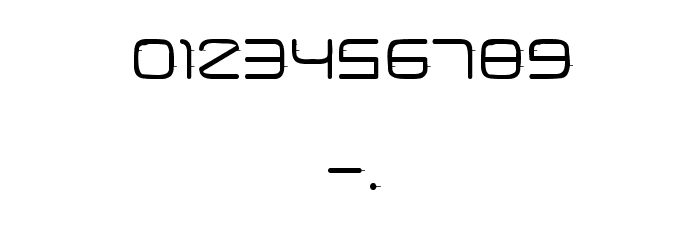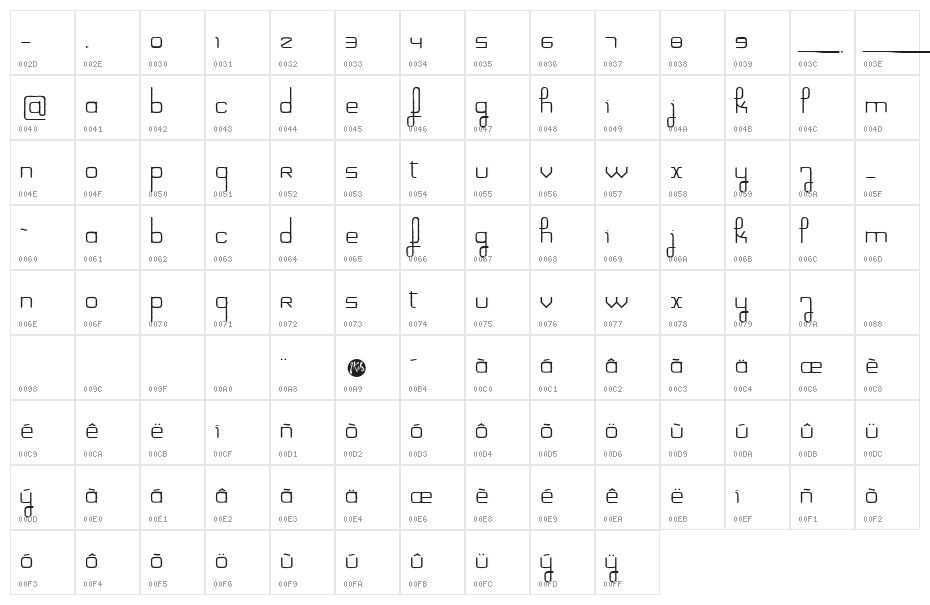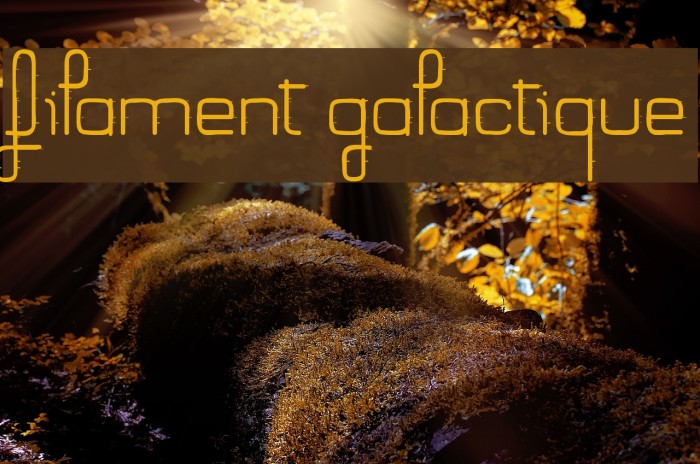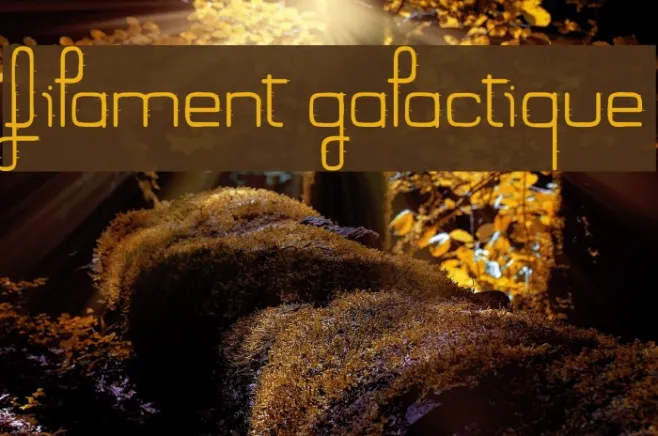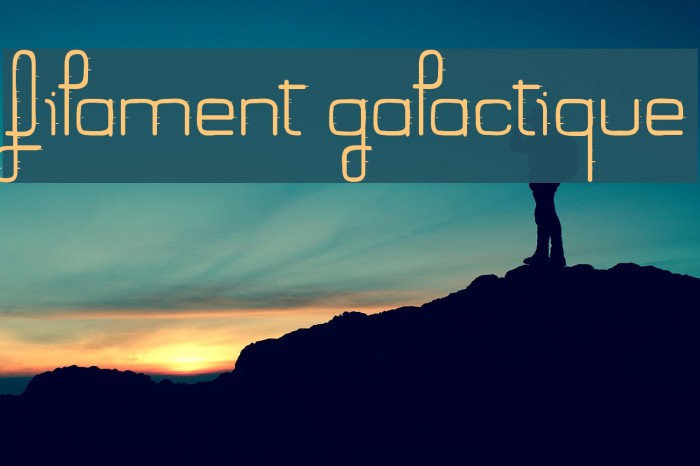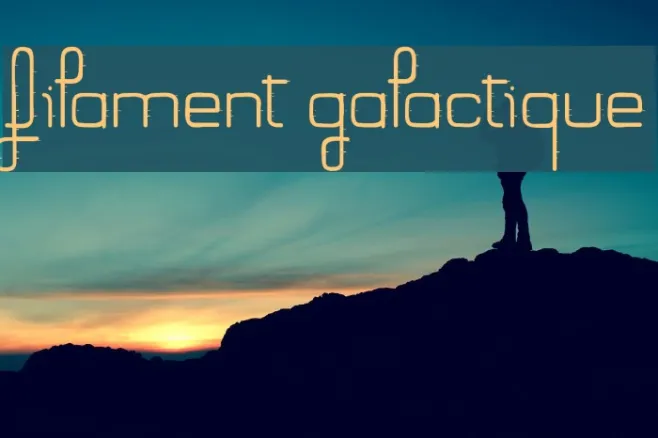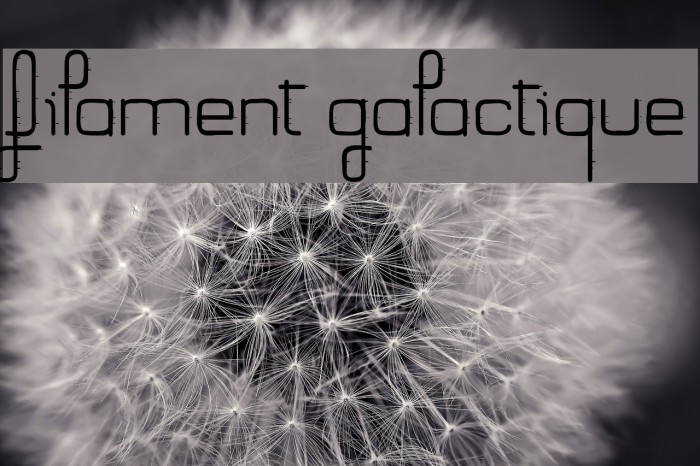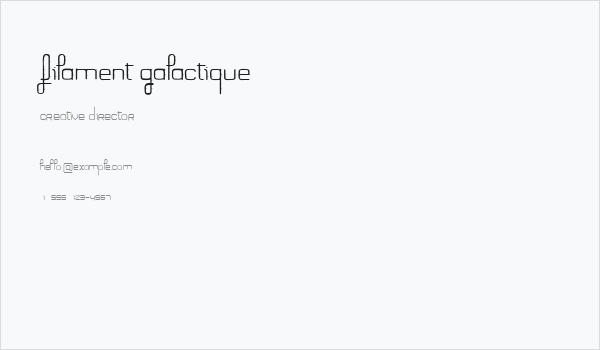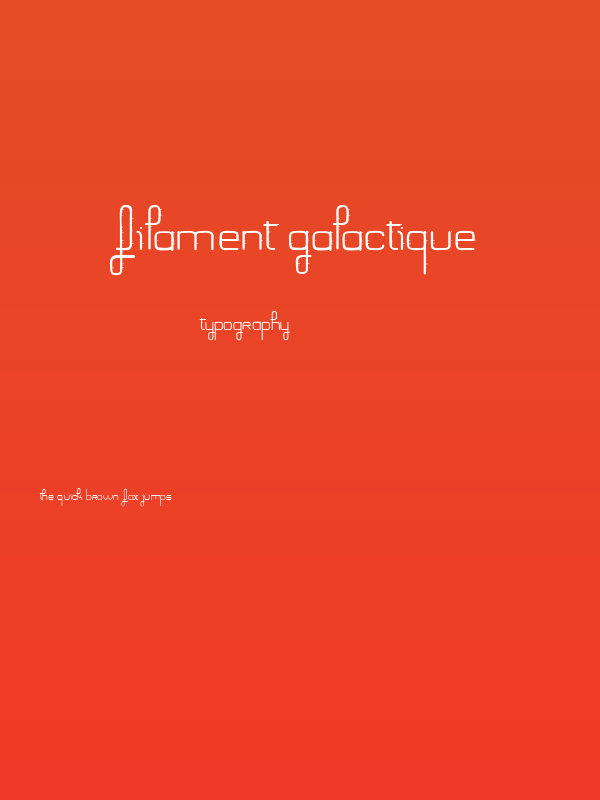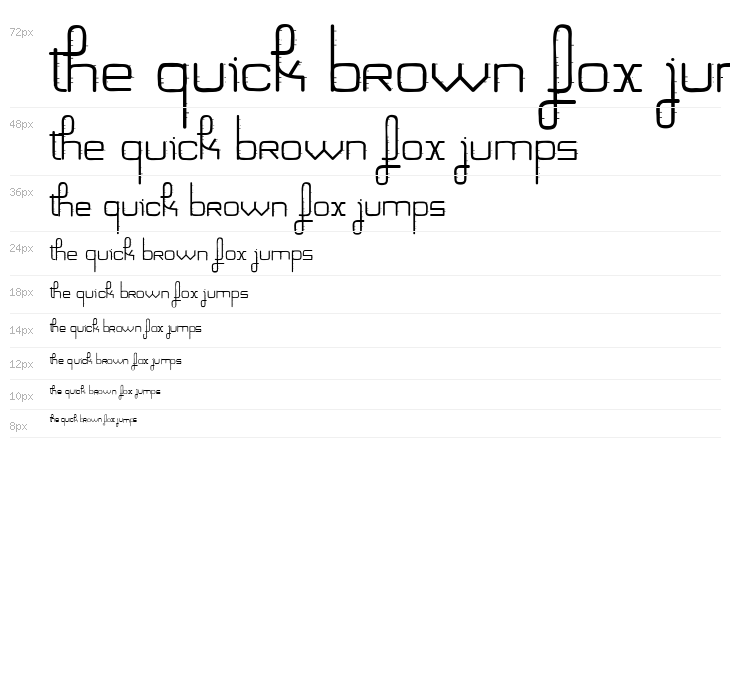
Filament Galactique Font
Filament Galactique Description
This font features a futuristic and geometric design with a unique blend of straight lines and rounded edges. The characters are constructed with a consistent stroke width, giving it a monospaced appearance. The uppercase and lowercase letters share similar heights, creating a uniform look. The numbers and special characters maintain the same stylistic elements, ensuring cohesion across all glyphs. The font's distinct style makes it suitable for modern and tech-oriented projects, offering a sleek and innovative aesthetic.
| Use Case | Logos, Digital interfaces, Tech branding |
| Proposed Projects | Ideal for tech branding, sci-fi themed designs, digital interfaces, and modern advertising. |